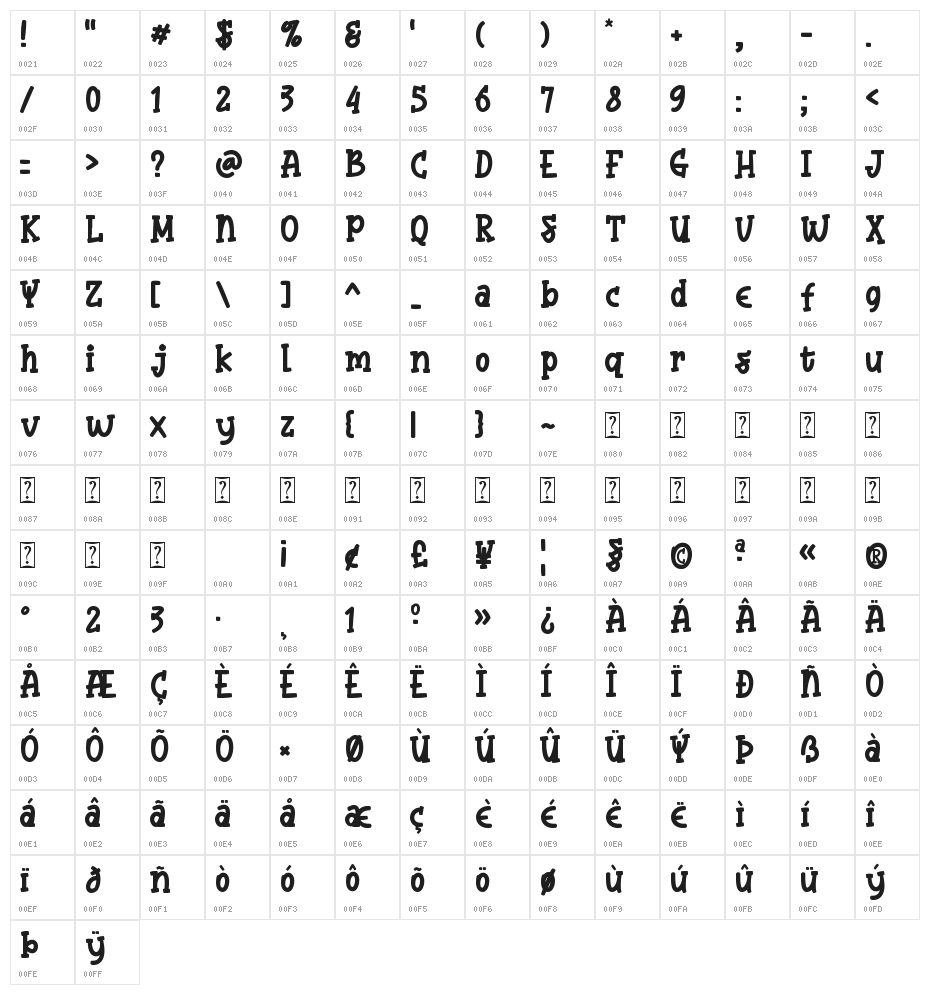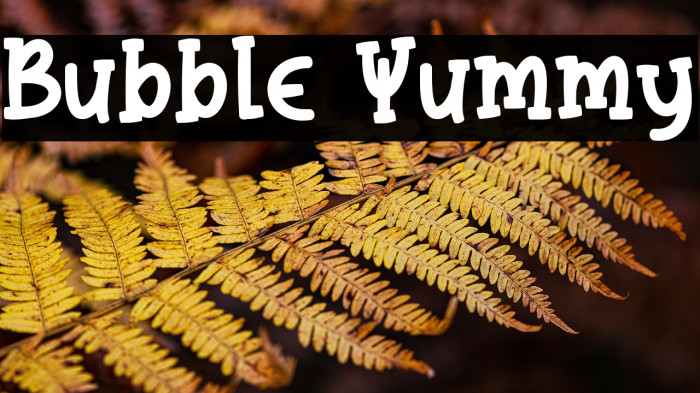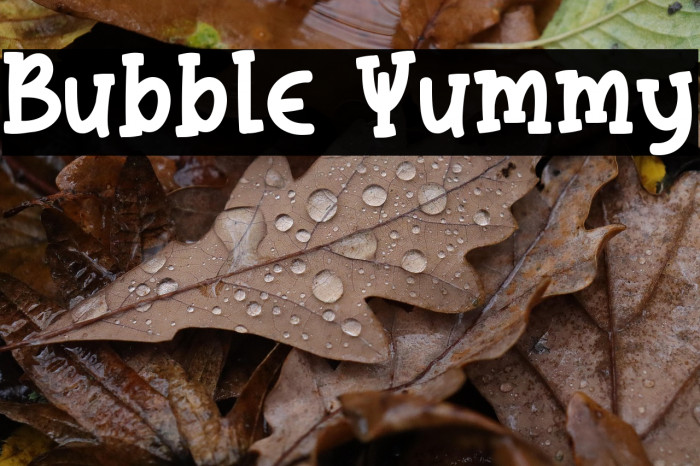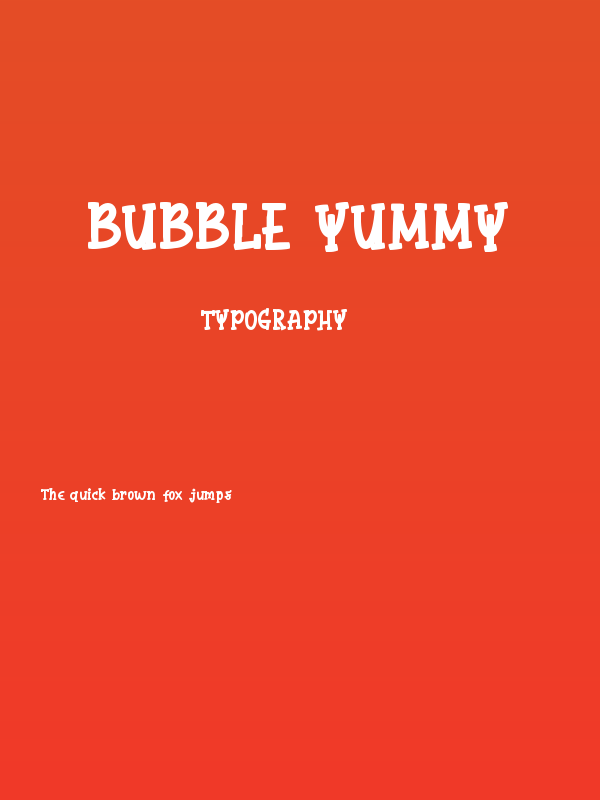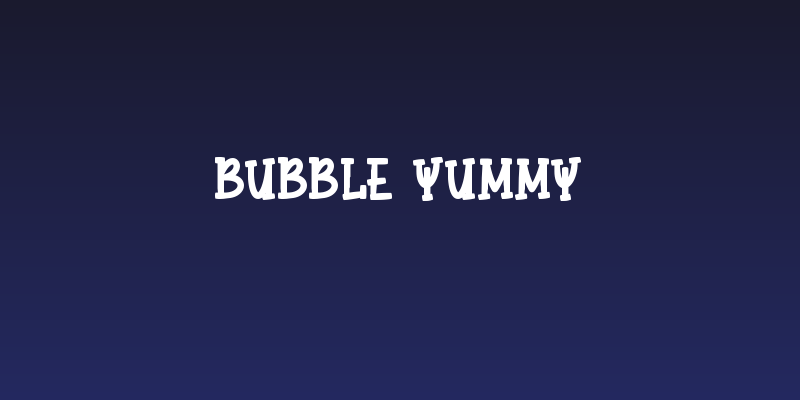
Bubble Yummy Font
Bubble Yummy Description
This playful and whimsical font features bold, rounded characters with a bubbly appearance. The letters have a hand-drawn quality, with slightly uneven strokes that add to its charm. The uppercase and lowercase letters maintain a consistent style, with a slight slant that gives a dynamic feel. Numbers and special characters are equally playful, making this font ideal for projects that require a fun and informal touch. The overall design is approachable and friendly, perfect for capturing attention in a lighthearted way.
Overall StylePlayful
Proposed ProjectsIdeal for children's books, party invitations, playful branding, and social media graphics.